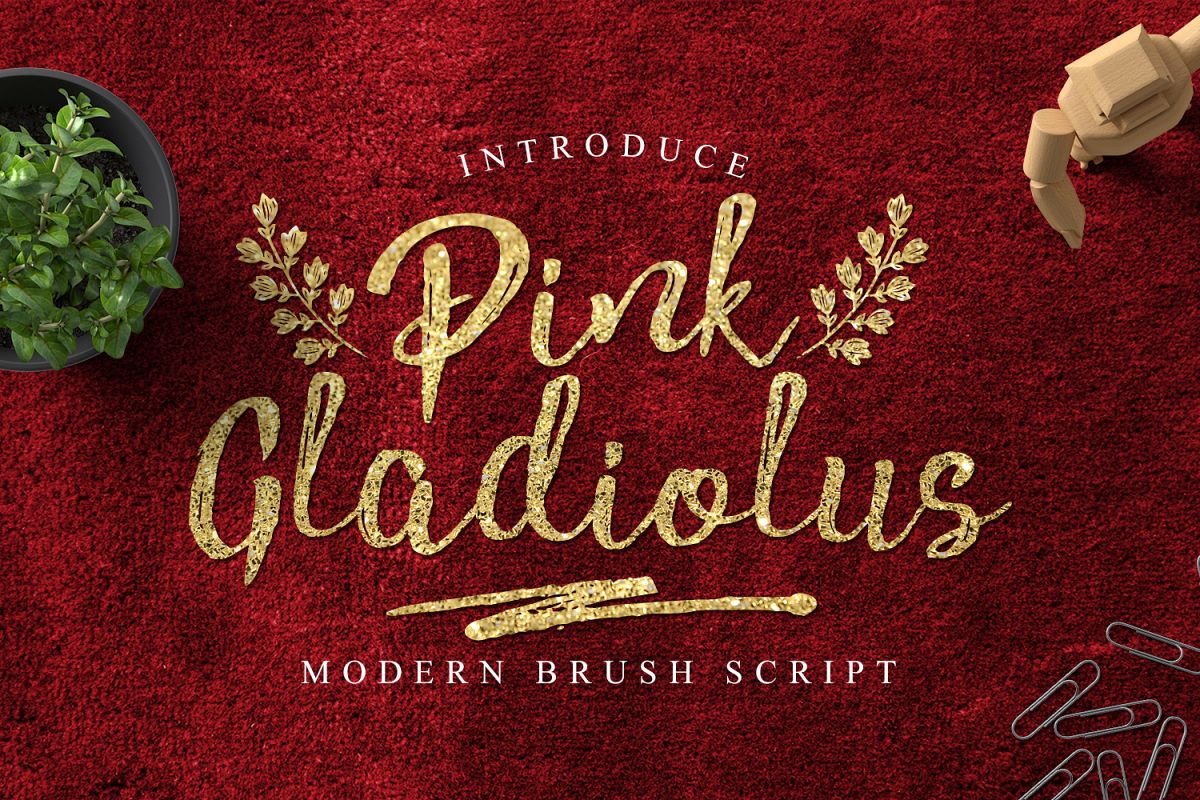
Pink Gladiolus
Pink Gladiolus Swashes
Pink Gladiolus Two
Pink Gladiolus One
Pink Gladiolus Bonus
Really excited to introduce Pink Gladiolus is a modern brush script! Pink Gladiolus perfect for all your designs project, event and more.